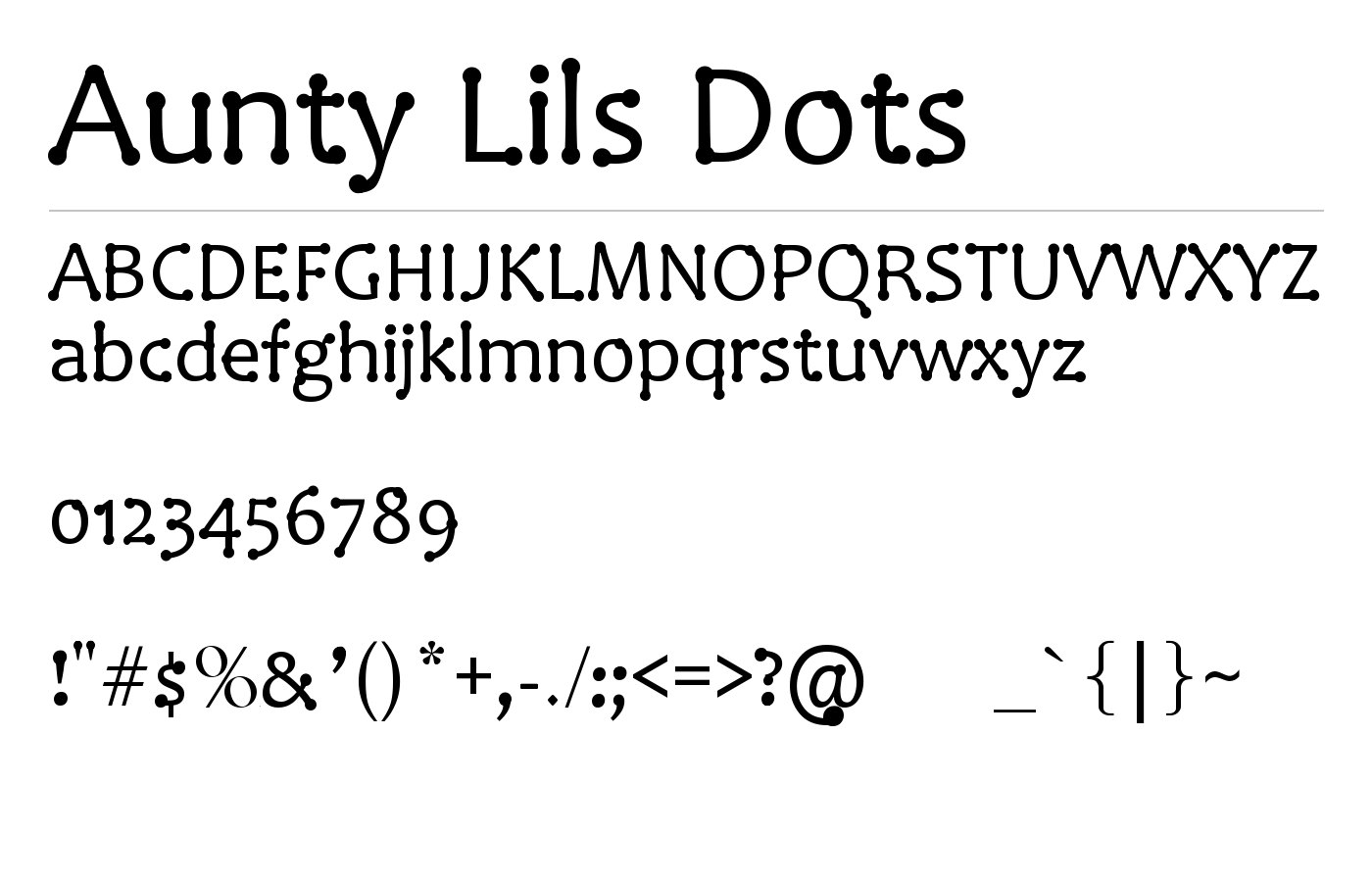
Aunty Lils Dots is a playful serif typeface featuring whimsical rounded terminals that resemble dots at stroke endings, giving it a friendly and quirky personality. With its moderate contrast and slightly condensed letterforms, it maintains good readability while adding a unique charm, making it ideal for creative branding, fun headlines, and children's content. This font brings a lighthearted, approachable feel that works well wherever a touch of individuality and warmth is desired.
Aunty Lils Dots Font
About Aunty Lils Dots Font